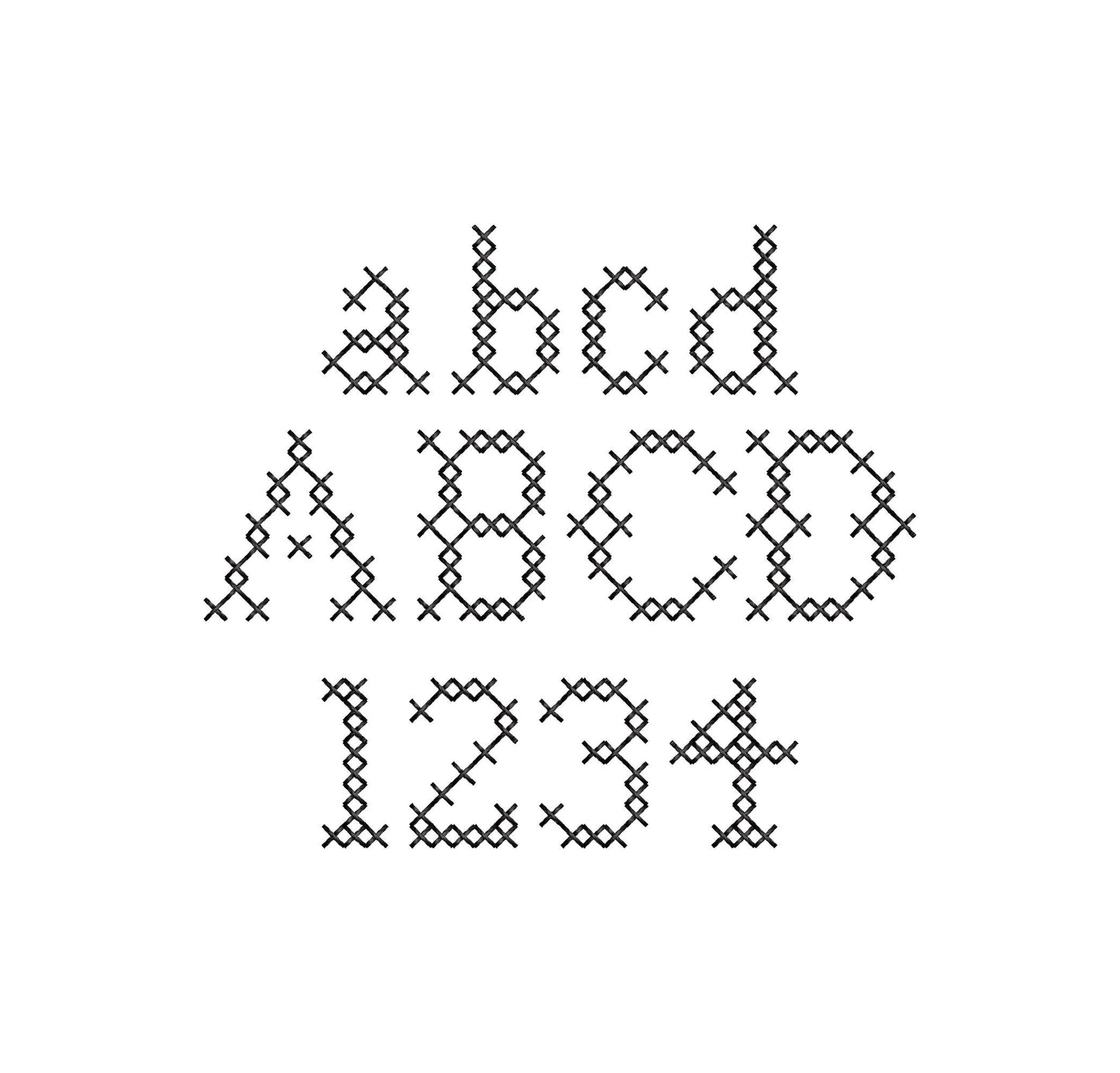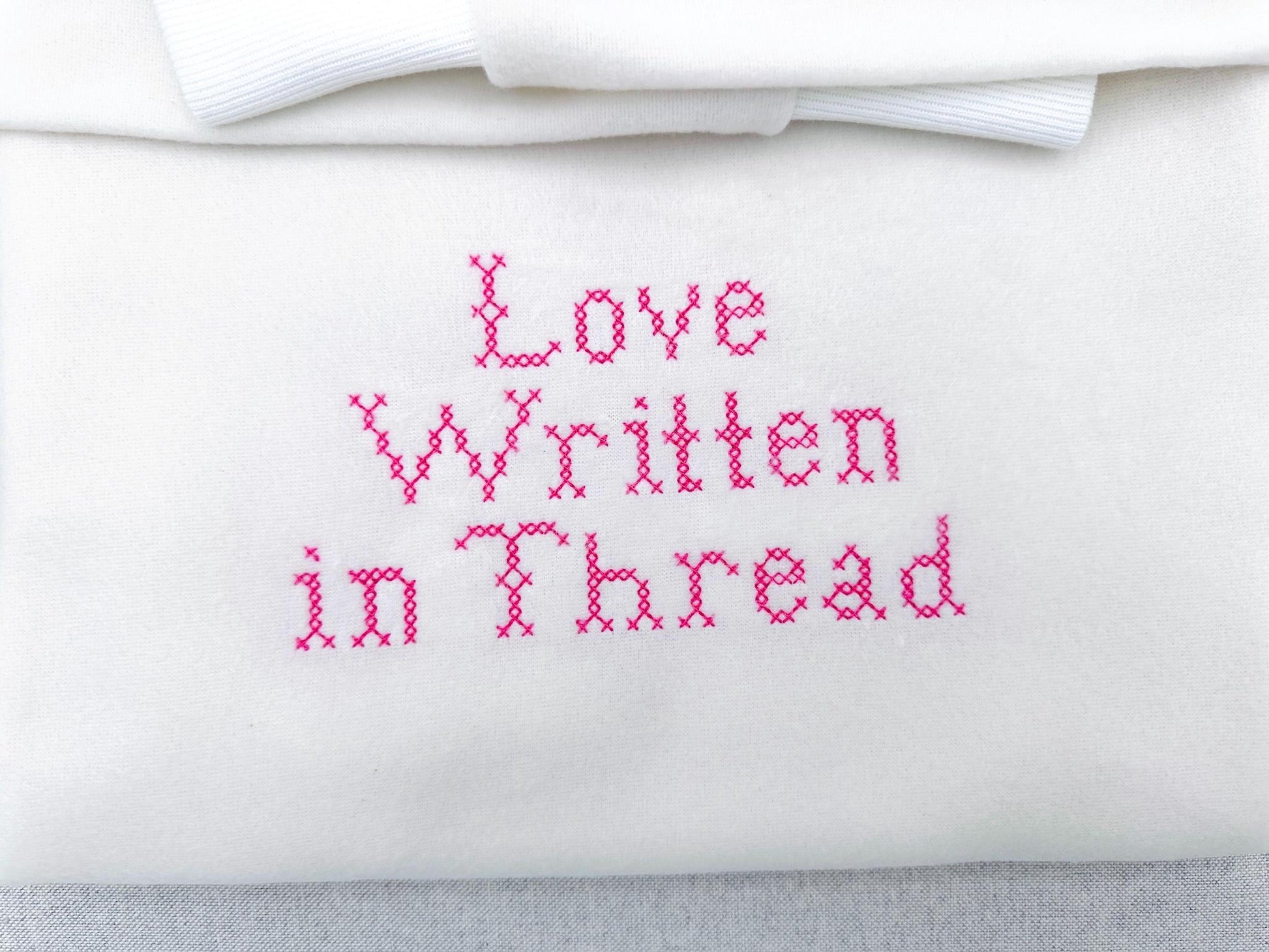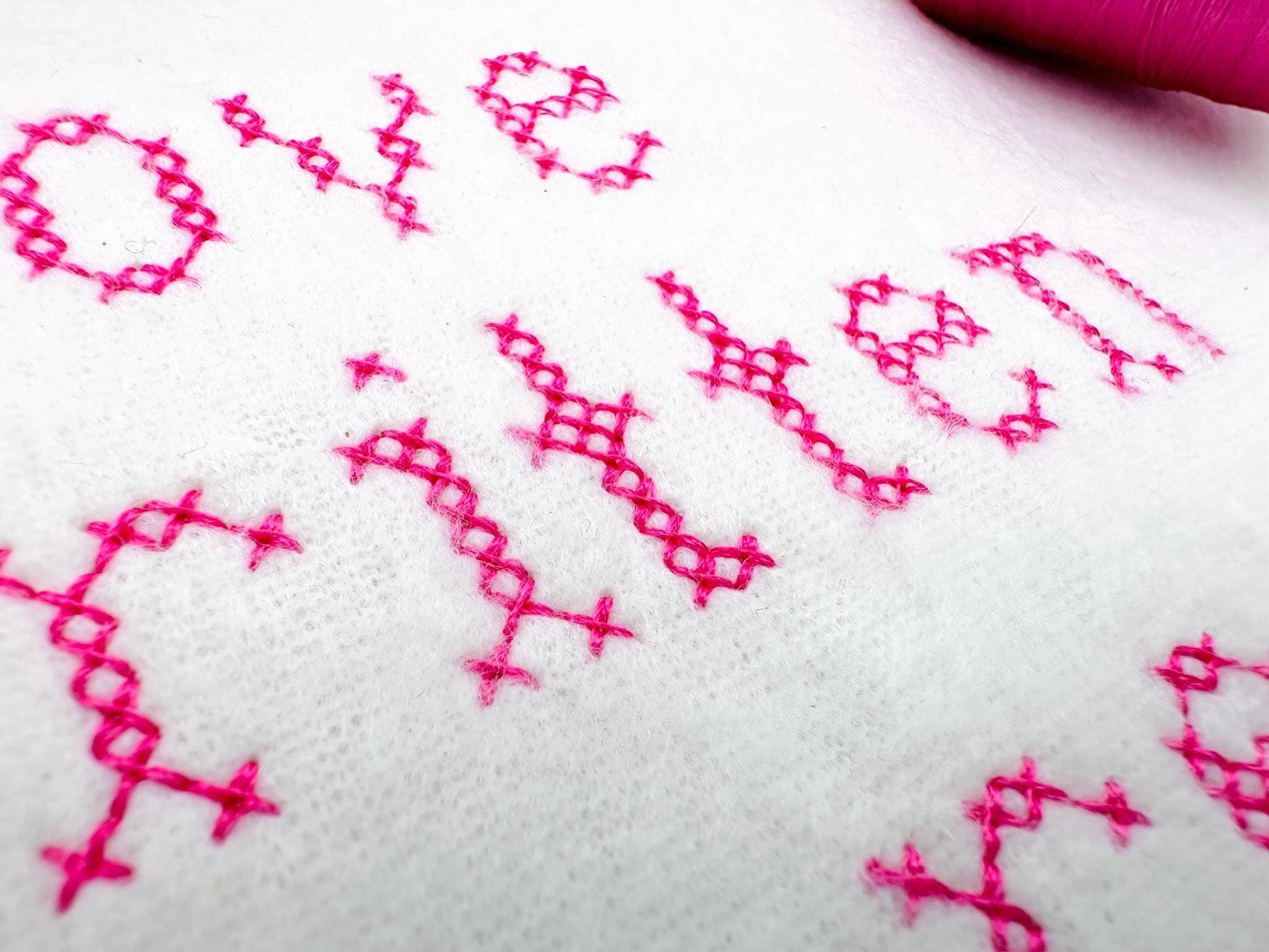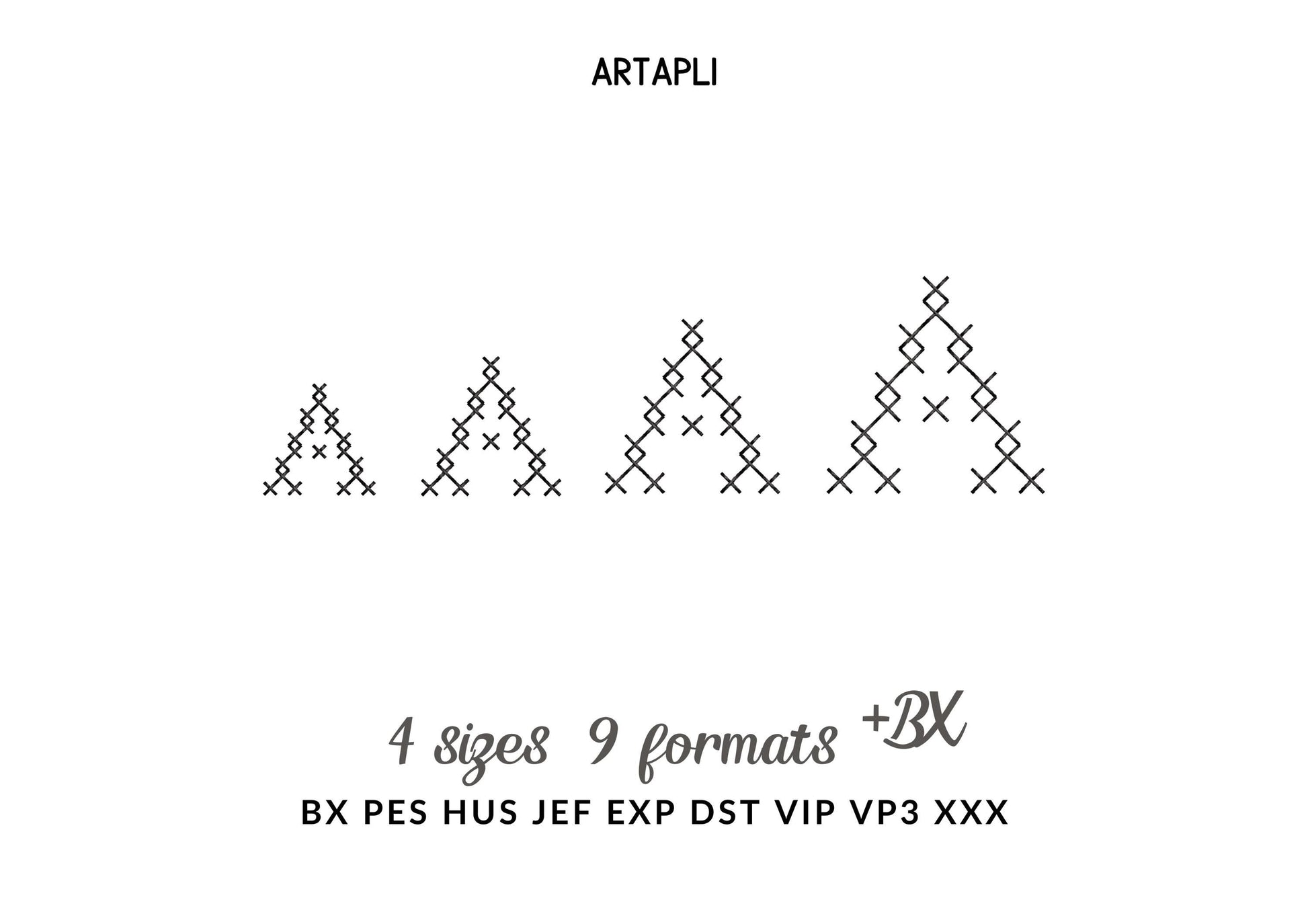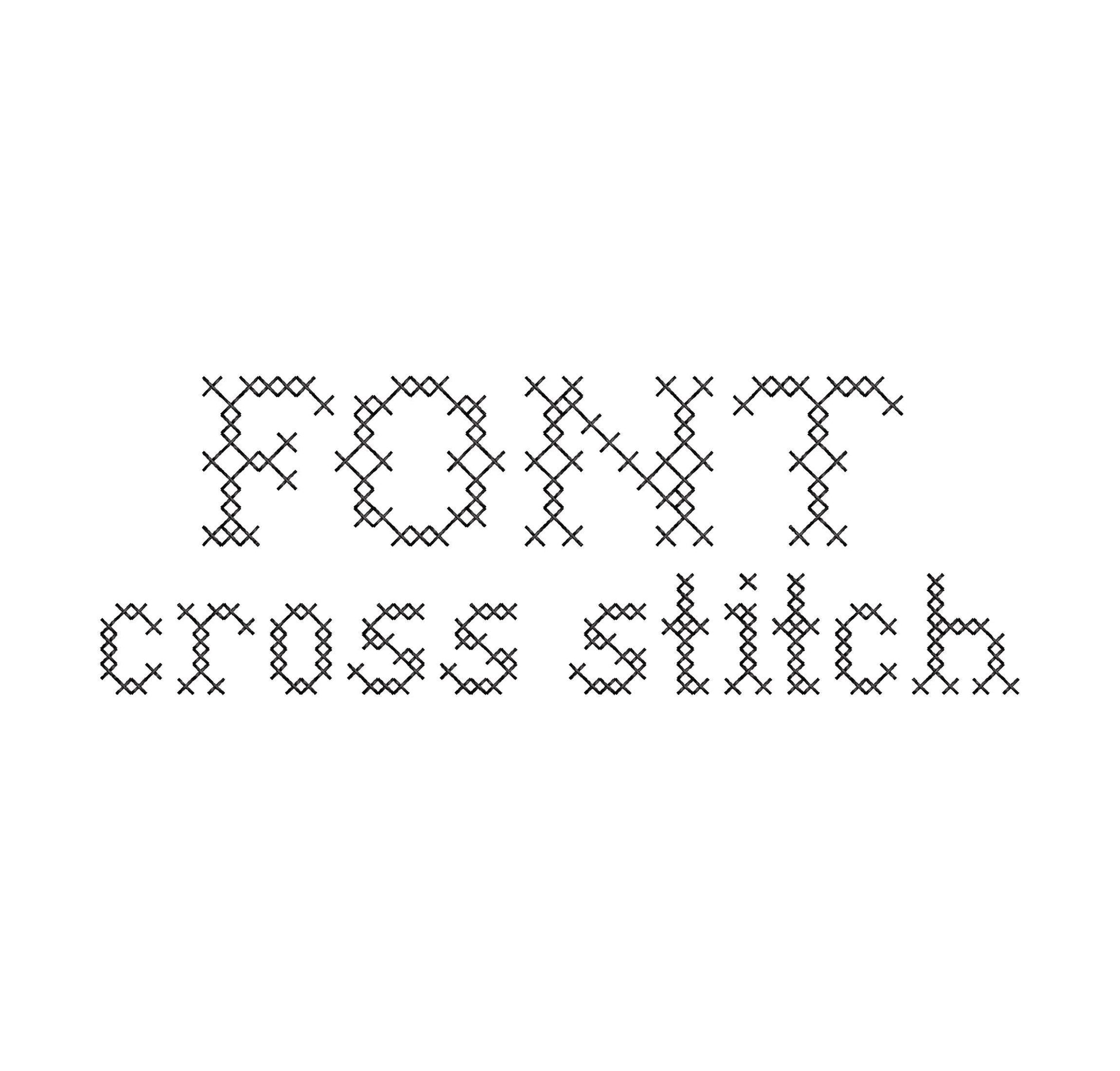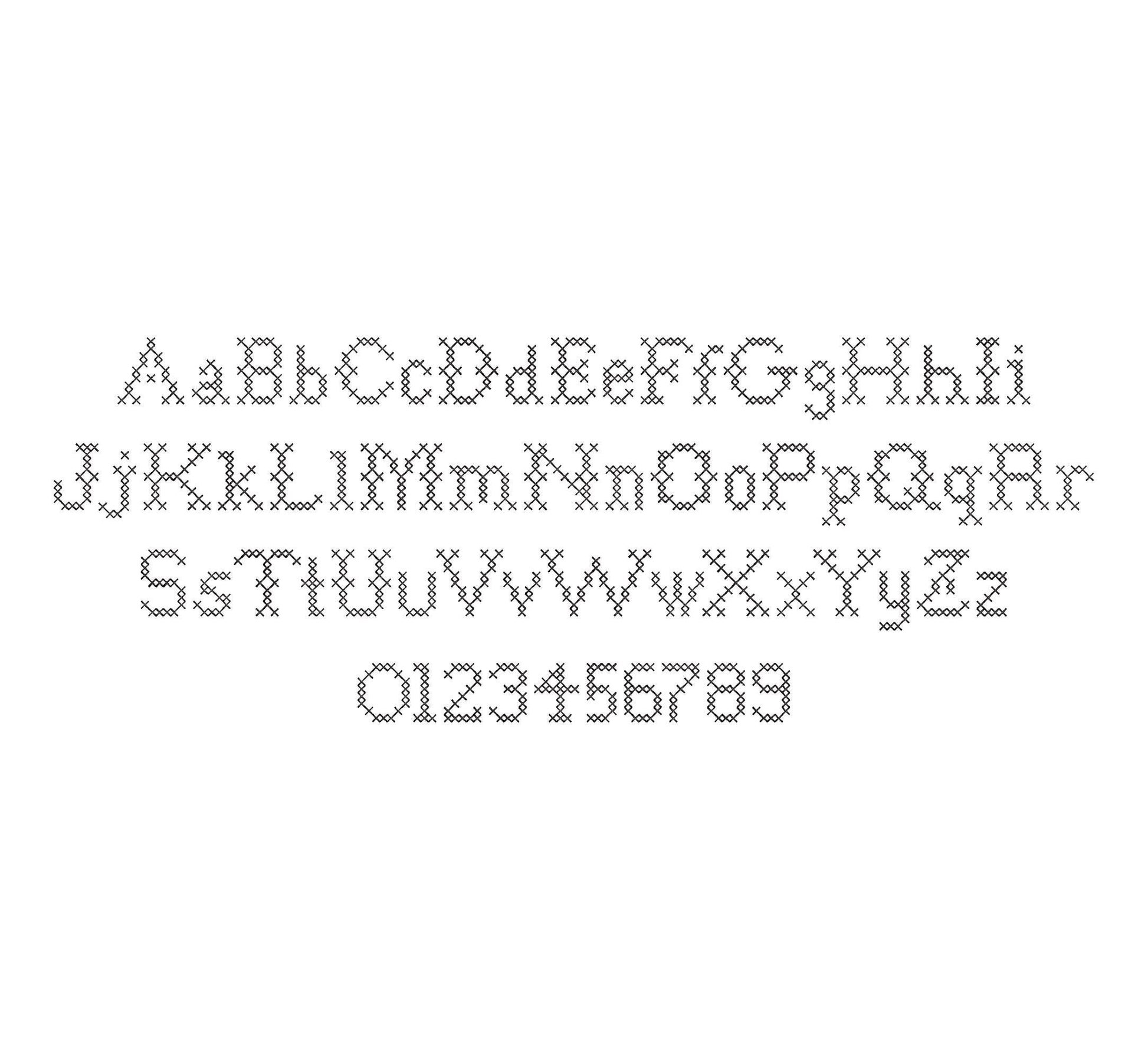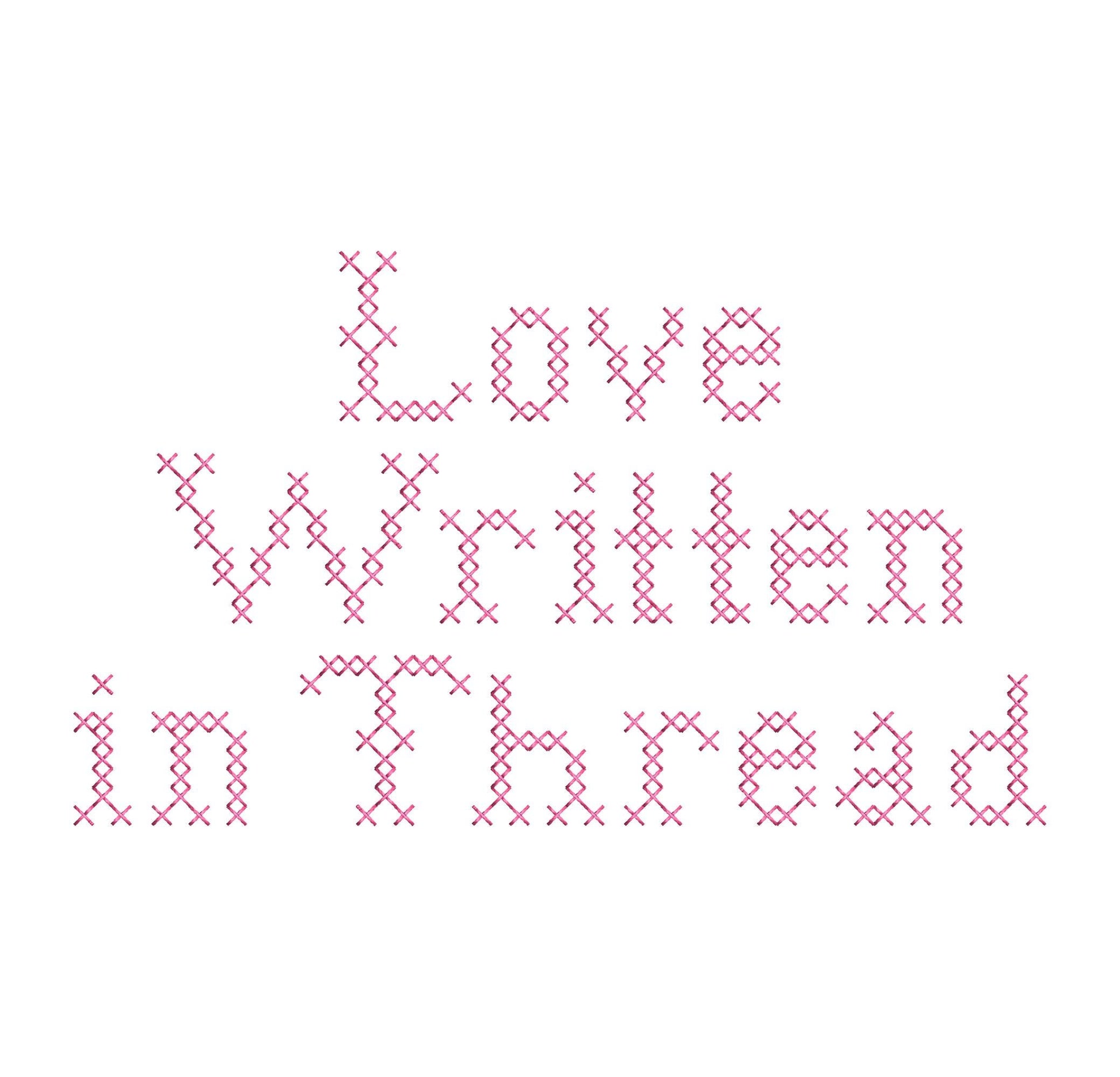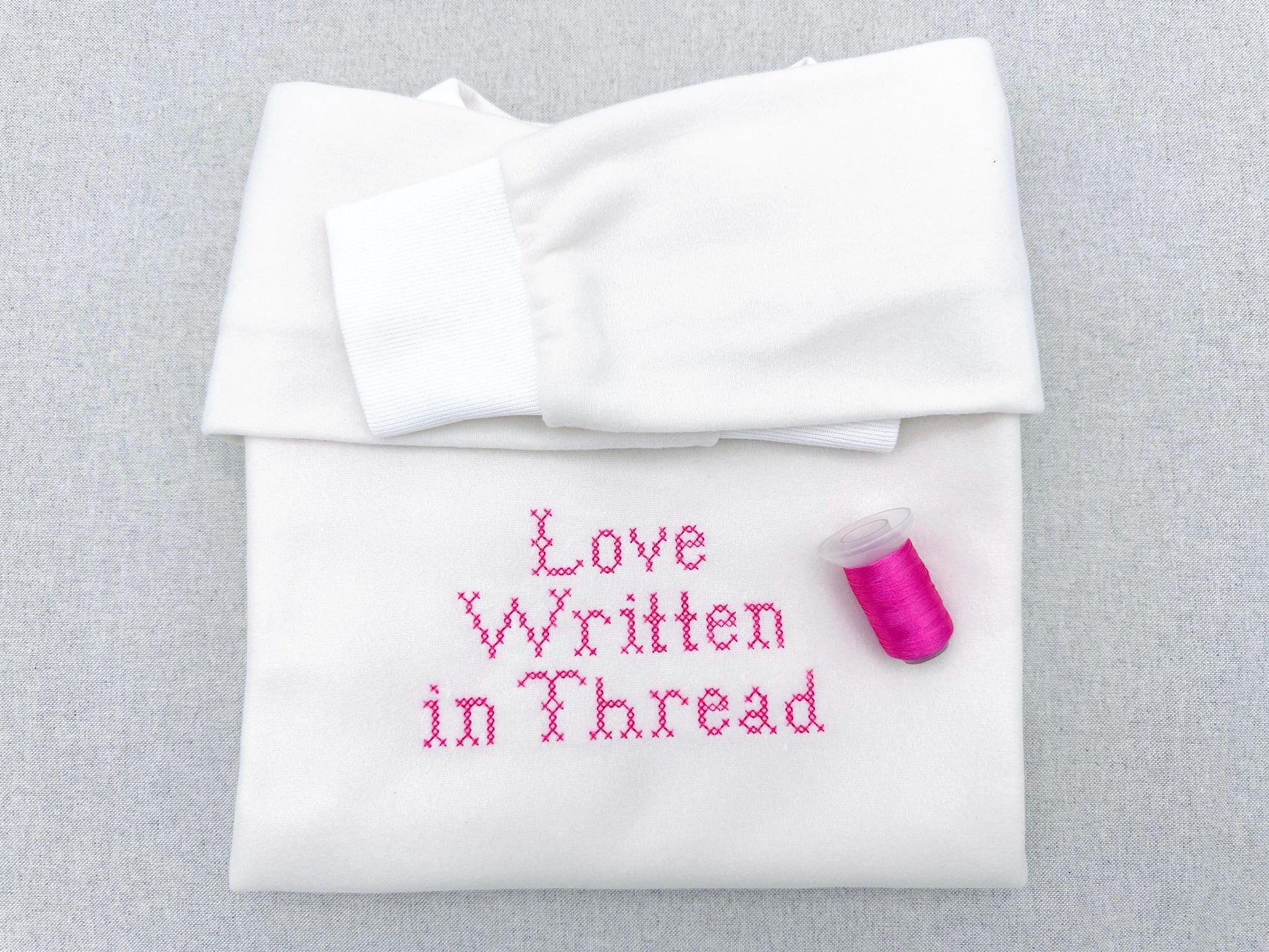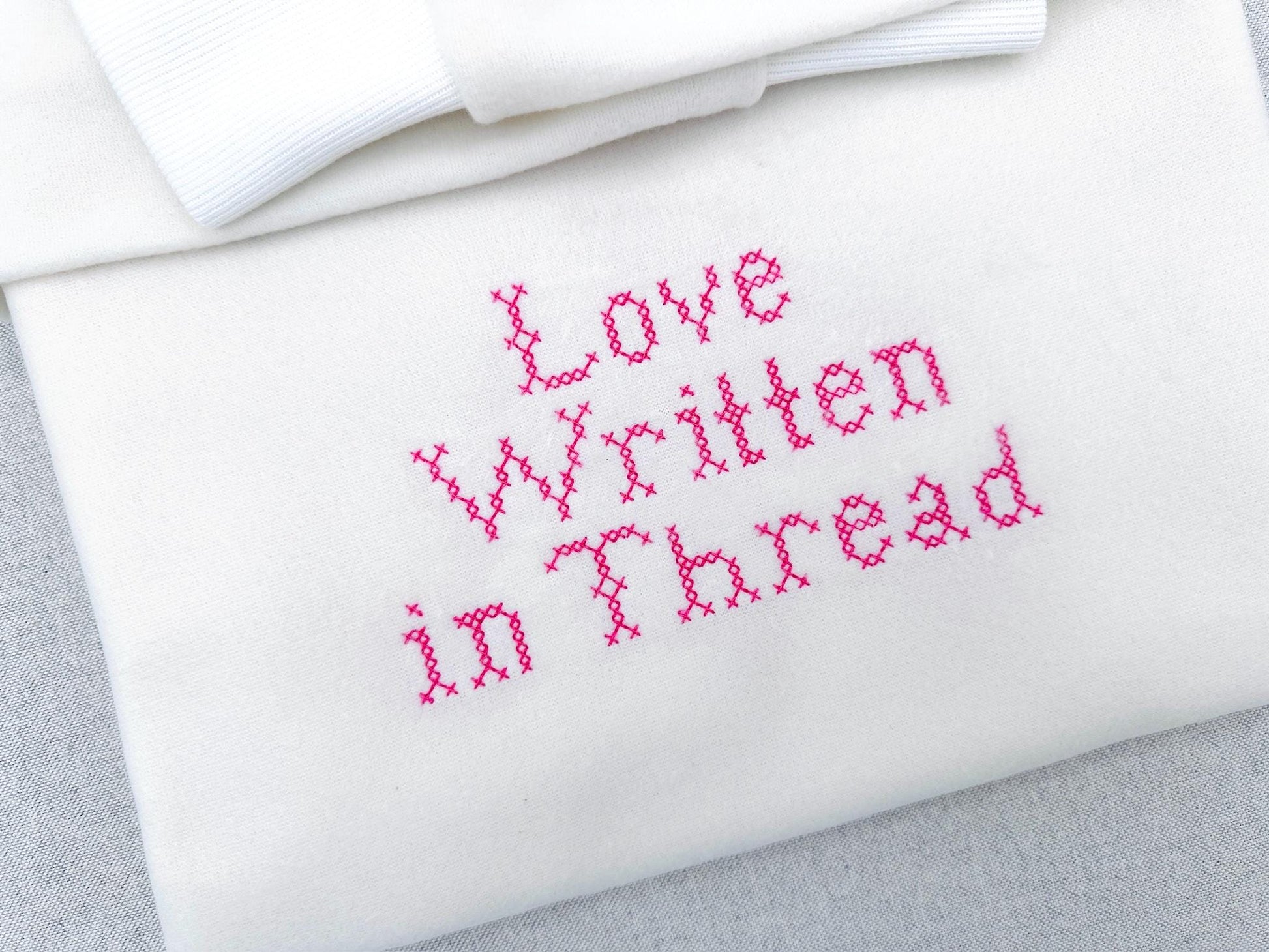
Or click to open the linkA classy cross stitch block font in small sizes. Charming for small names, initials and samplers on baby clothes and gifts.
The letters come in four mini sizes: 0.7, 0.9, 1.1 and 1.4 inches. Letters built from real cross stitches. Includes uppercase and lowercase letters A to Z, numbers 0 to 9, and punctuation.